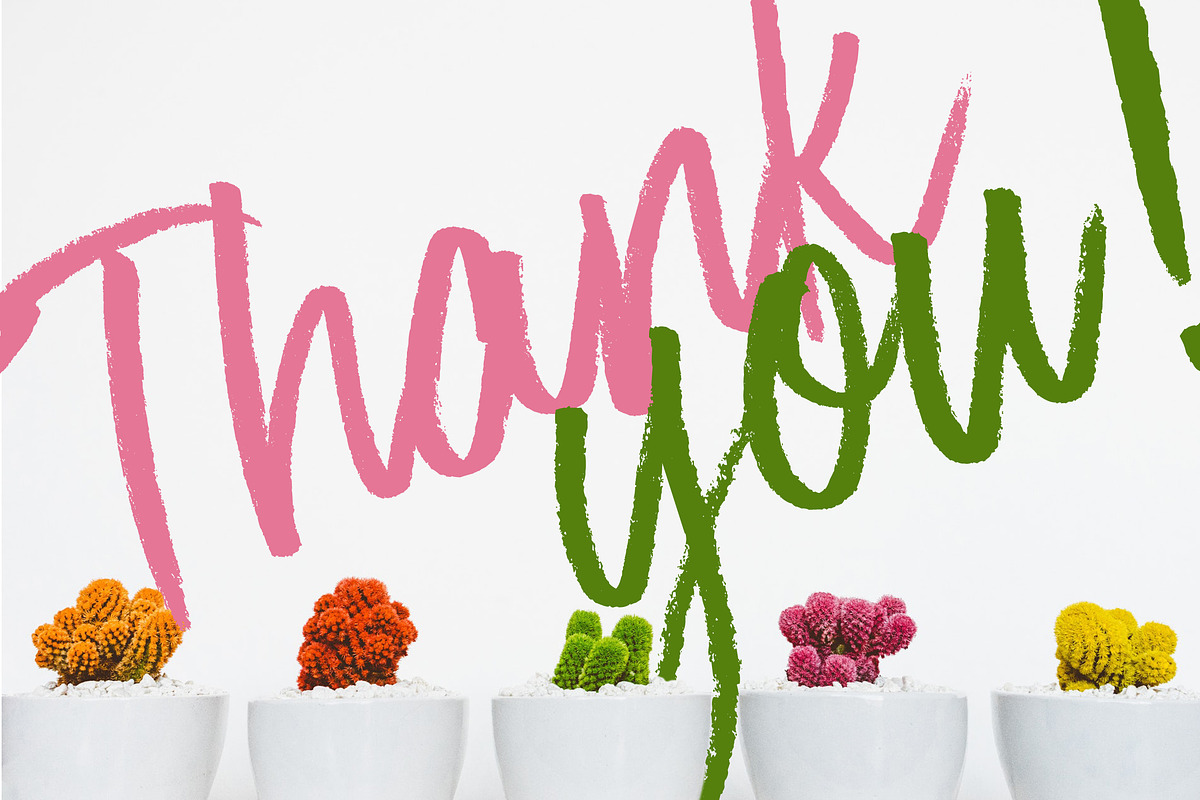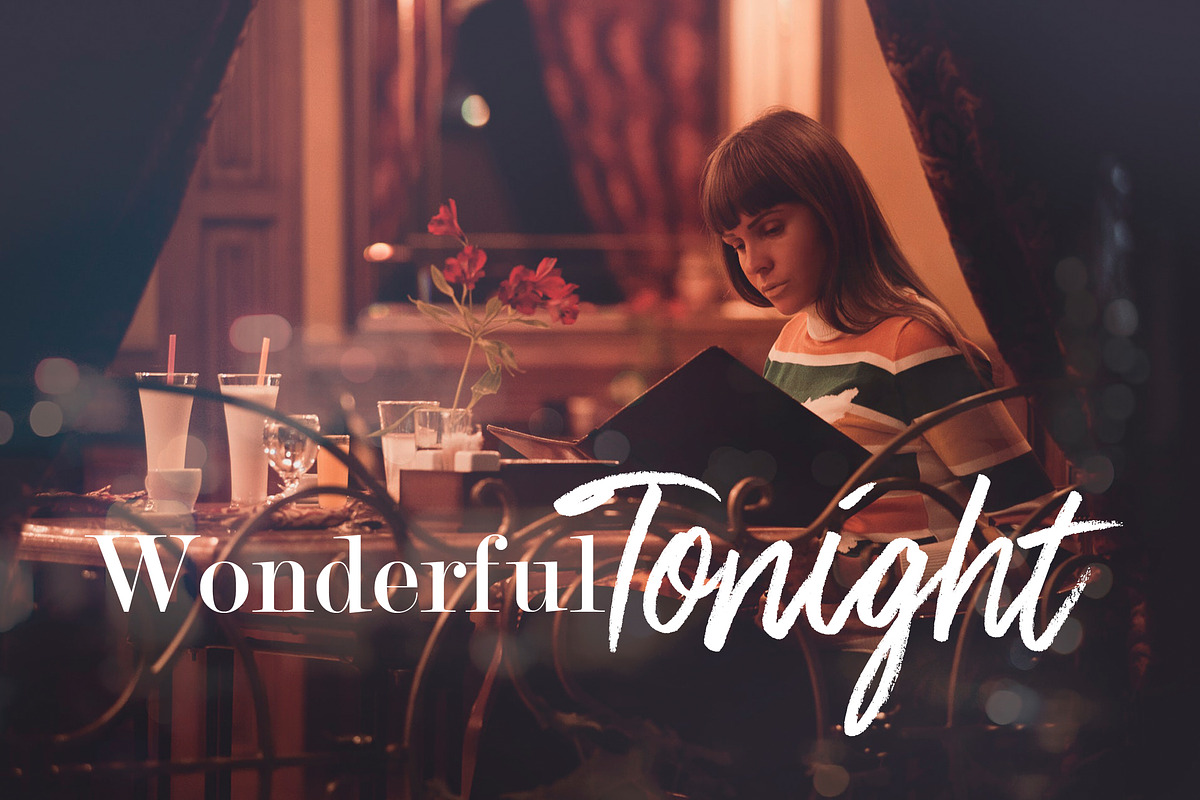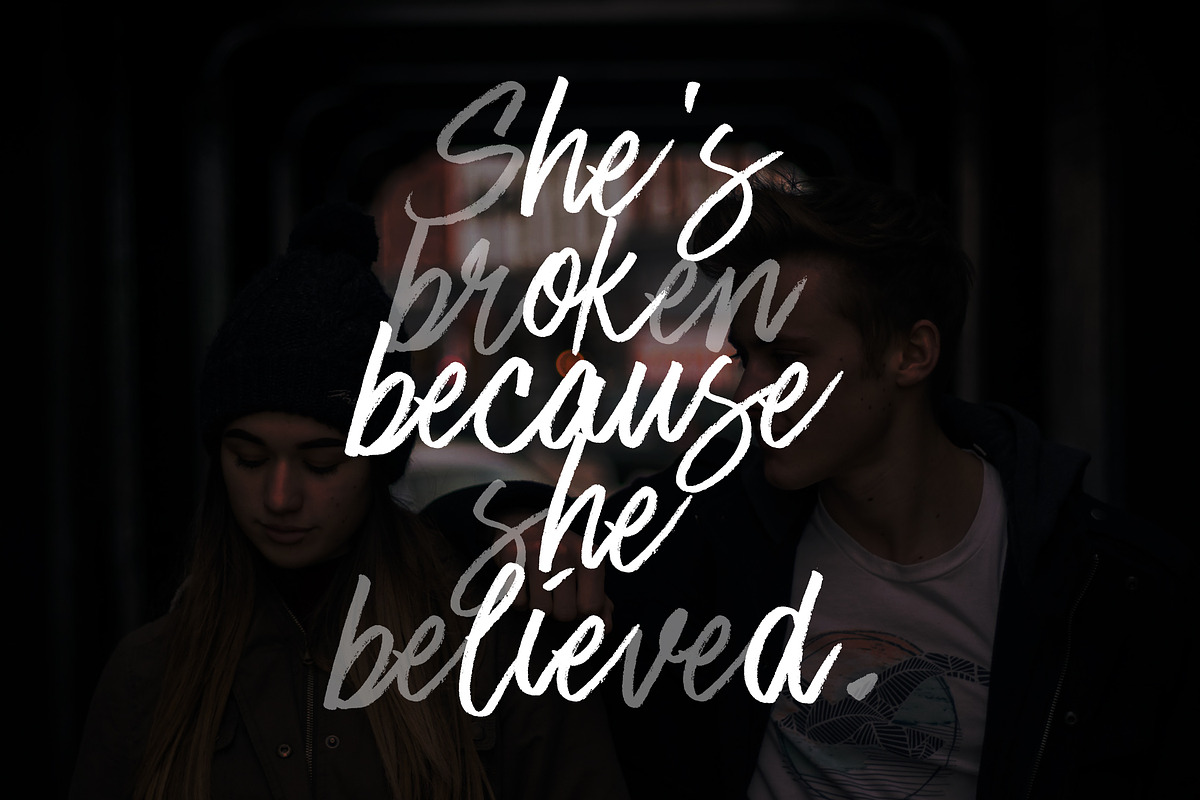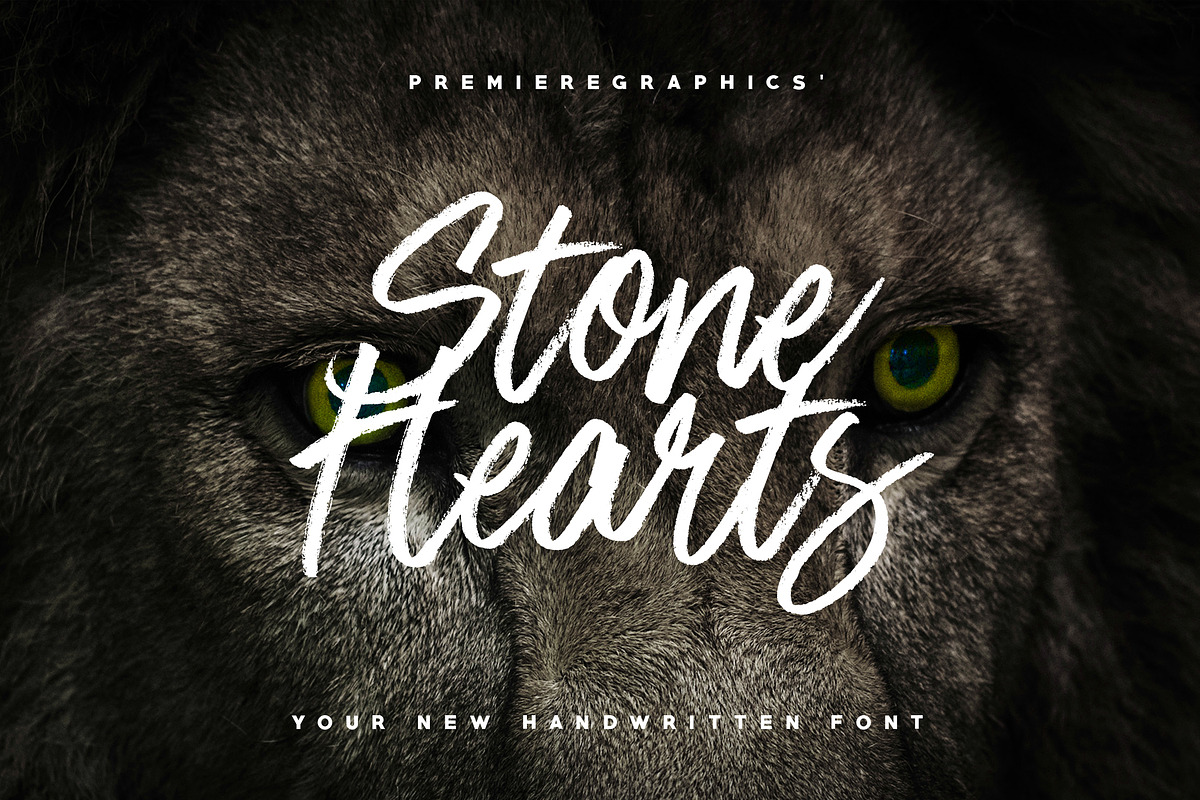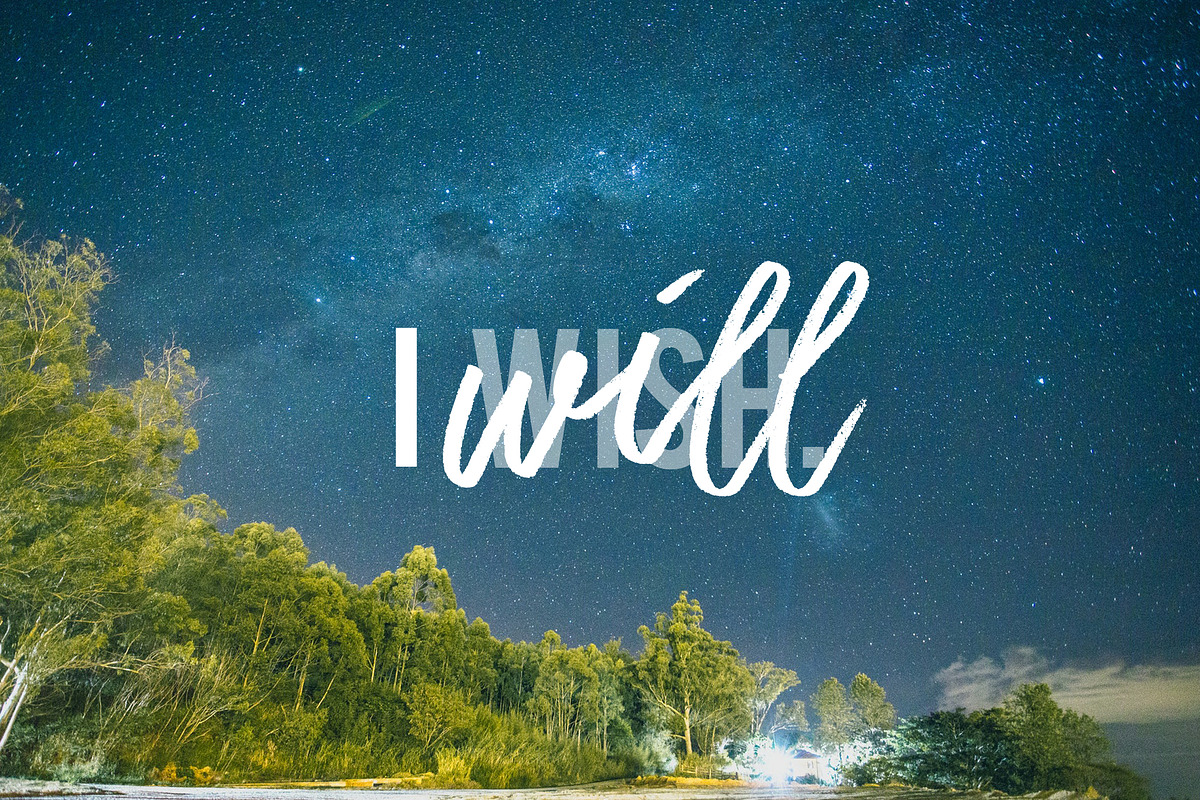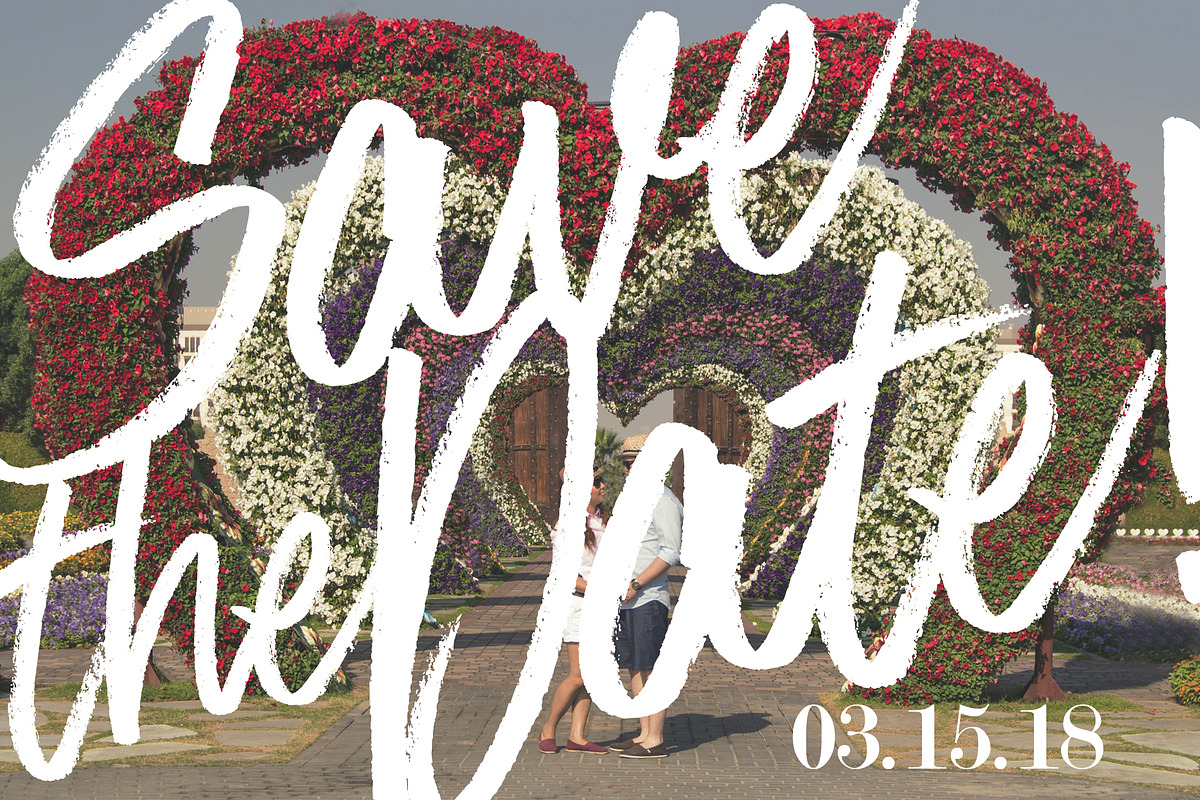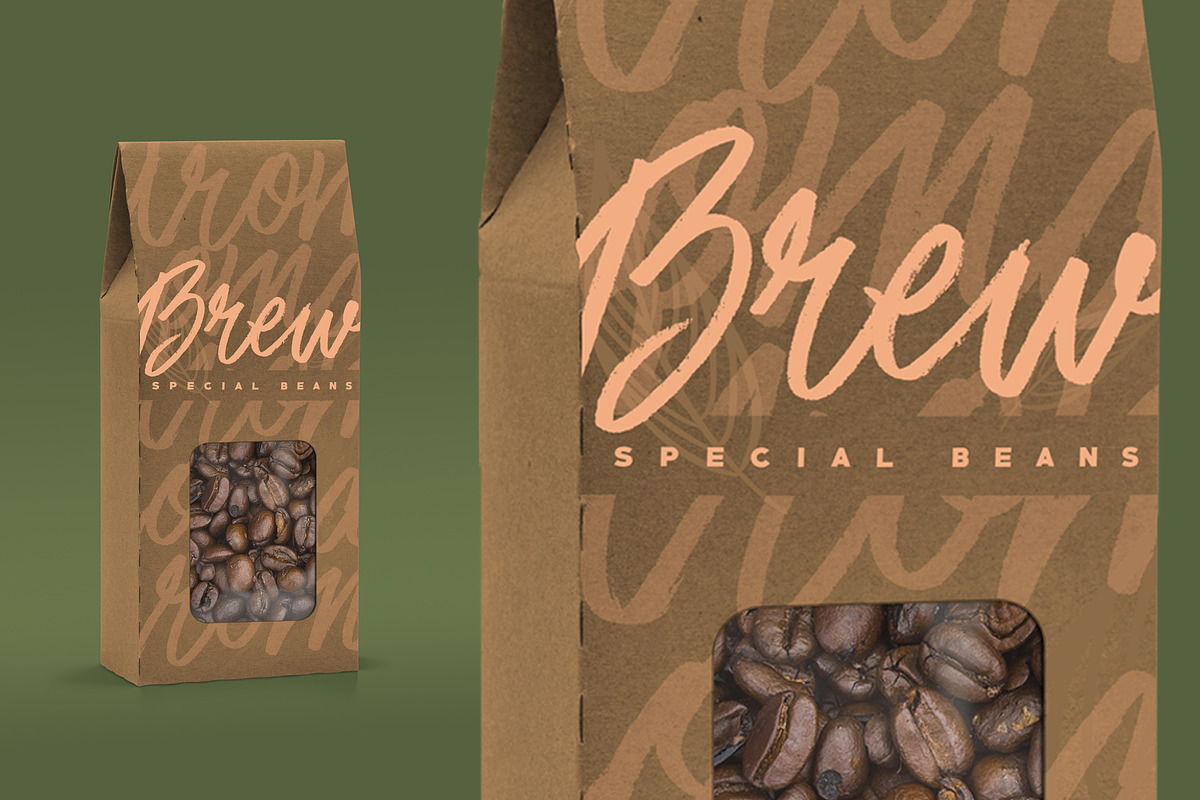
Stone Hearts Font
Have a braver heart this Valentine's Day! Stone Hearts font is not your regular Valentine's Day font. It is a mixture of both sweet and fierce. The font is carefully handwritten using a dry marker to get the best matte appearance. Stone Hearts font is perfect for graphic designs, advertisements, logo, identity and brand packaging. It is also great for inspirational quotes and of course, calligraphy.
Stone Hearts Font by Ryn Pojas fits naturally into Branding, posters, packaging, typography.